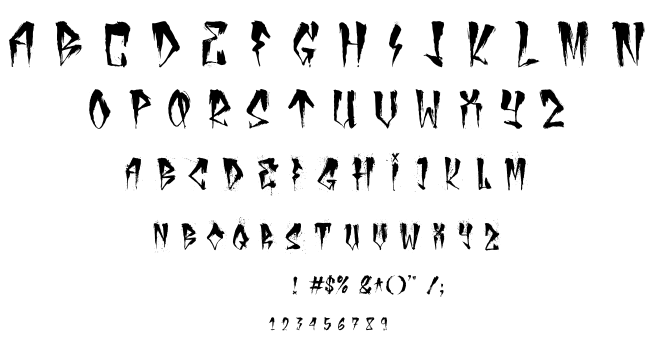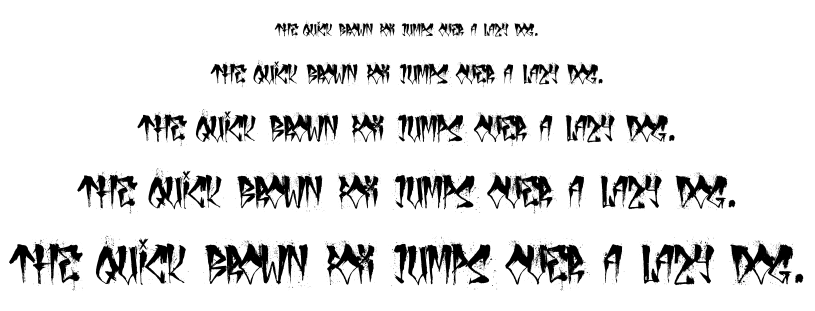
Urban Decay is a hand-made brush stroke
font made to celebrate my love for graffiti,
urban exploration, street calligraphy
and inner city living!
Give it a try and “vandalise” your graphics
with Urban Decay font!